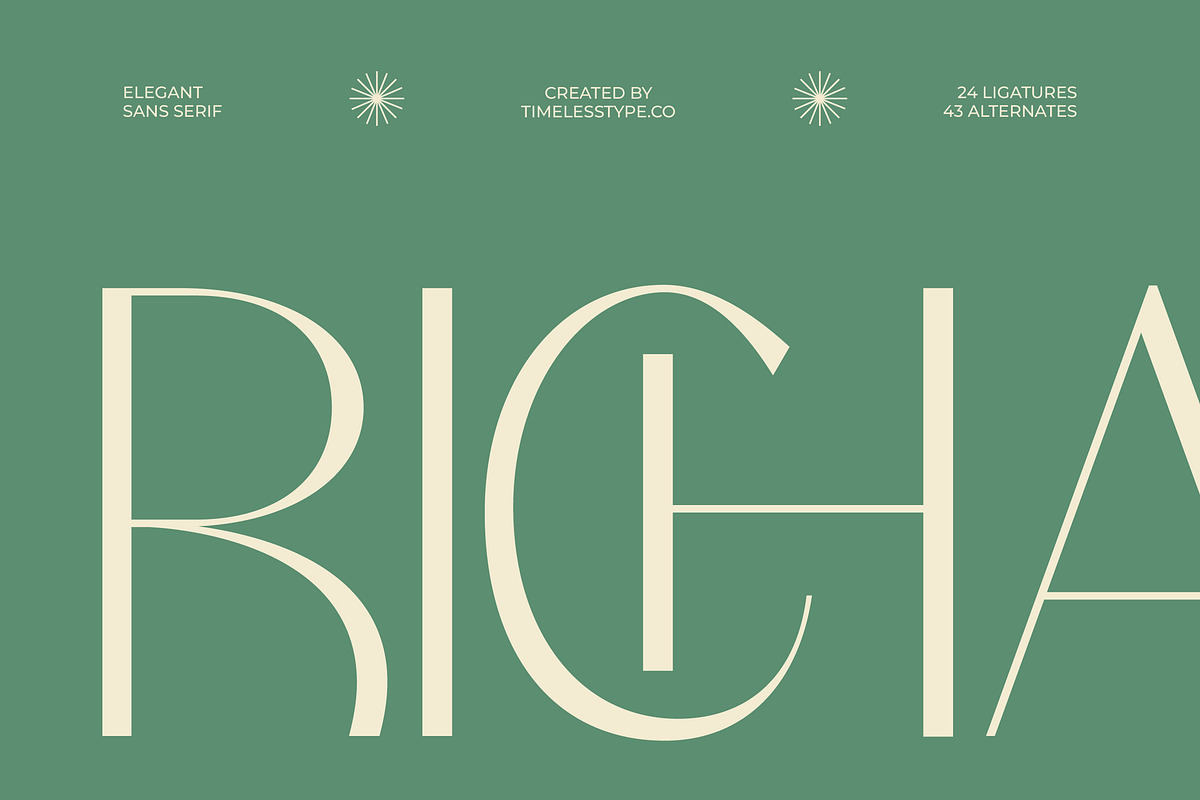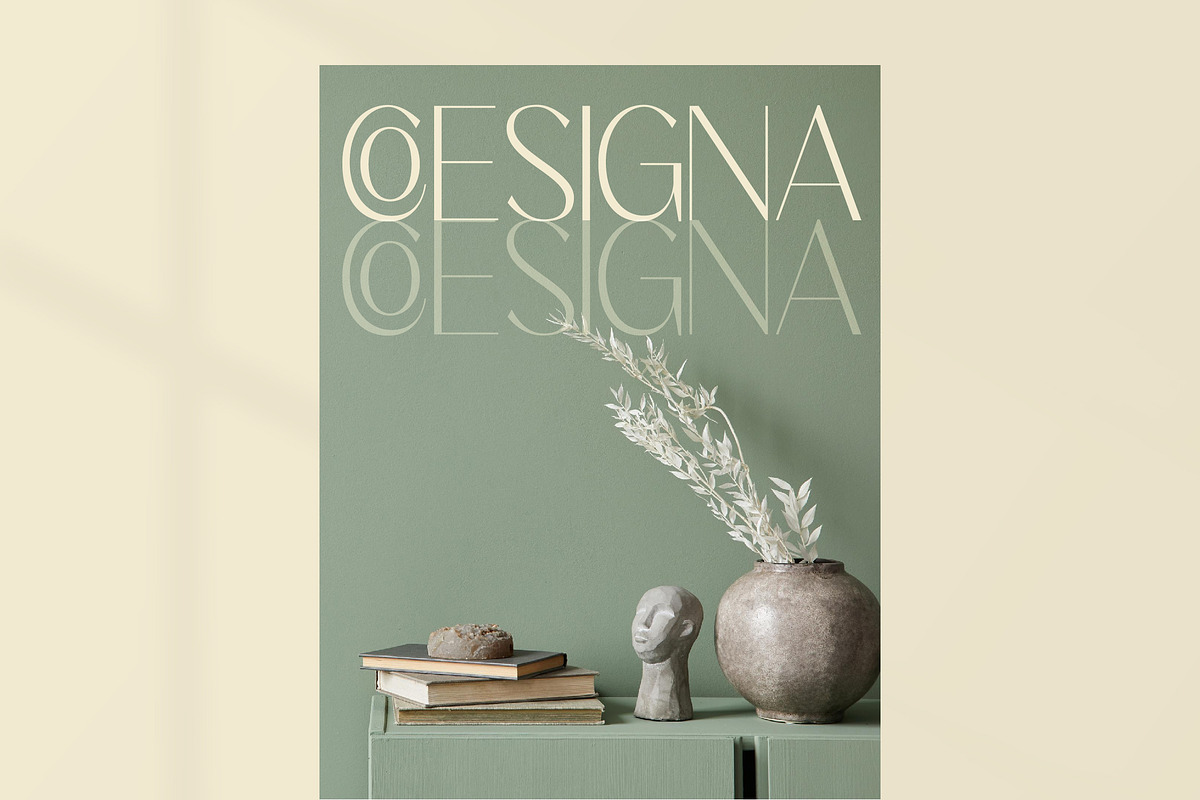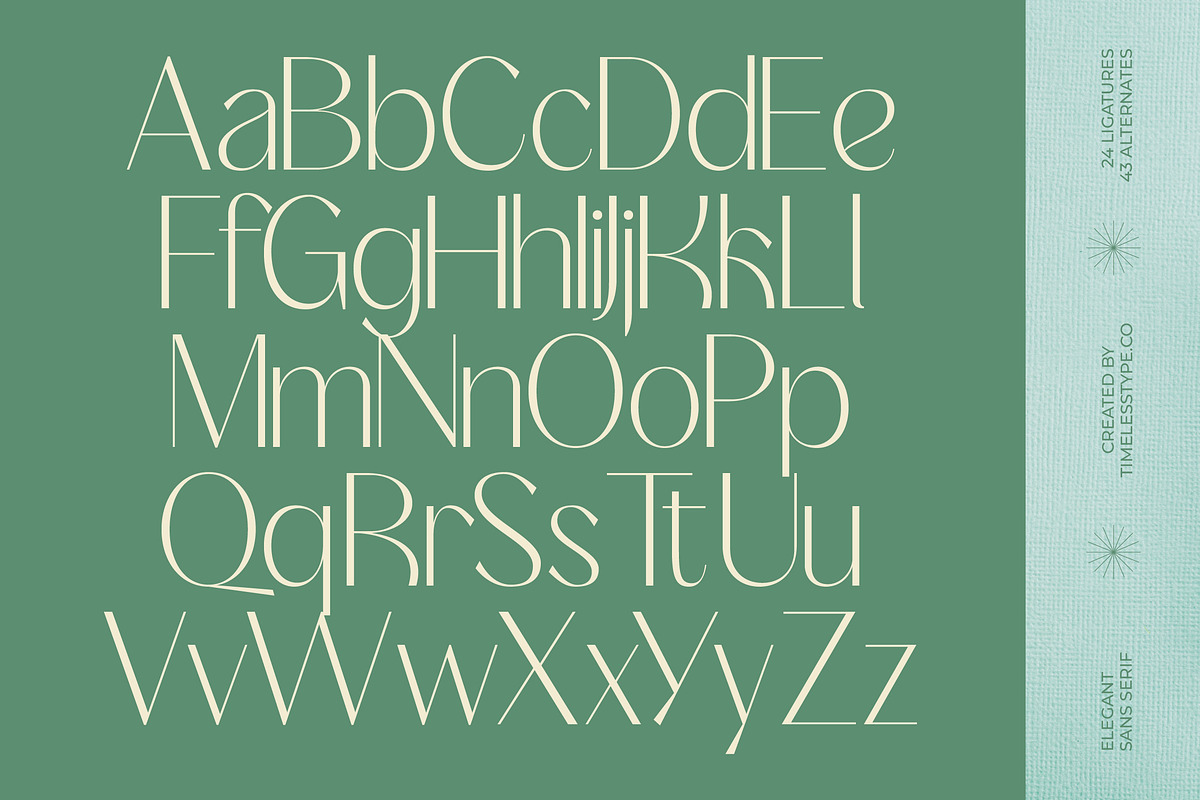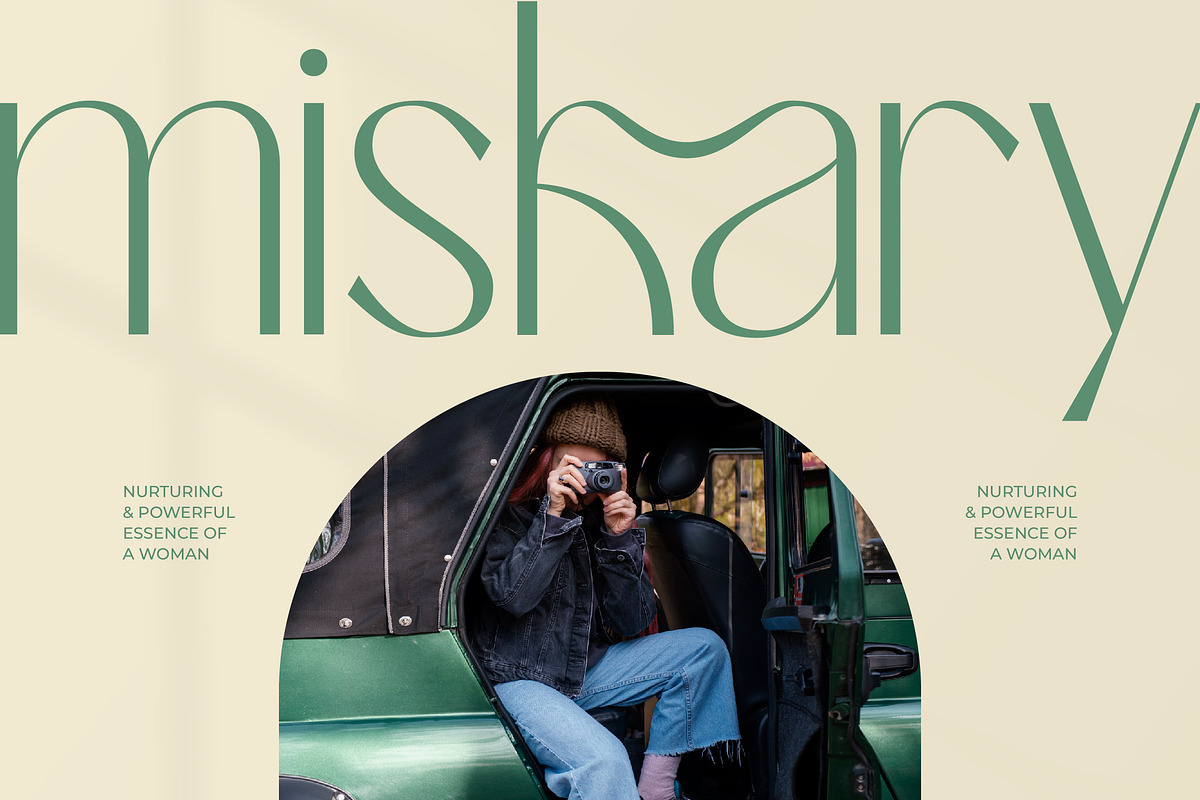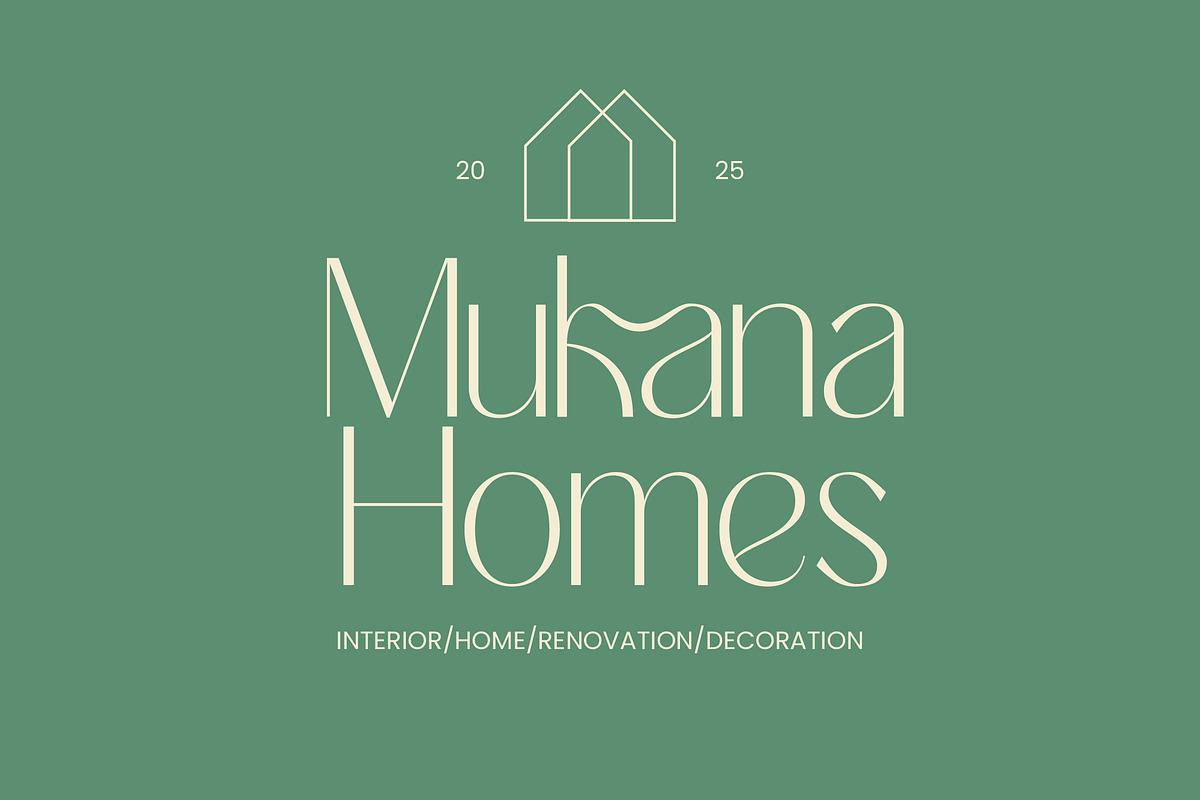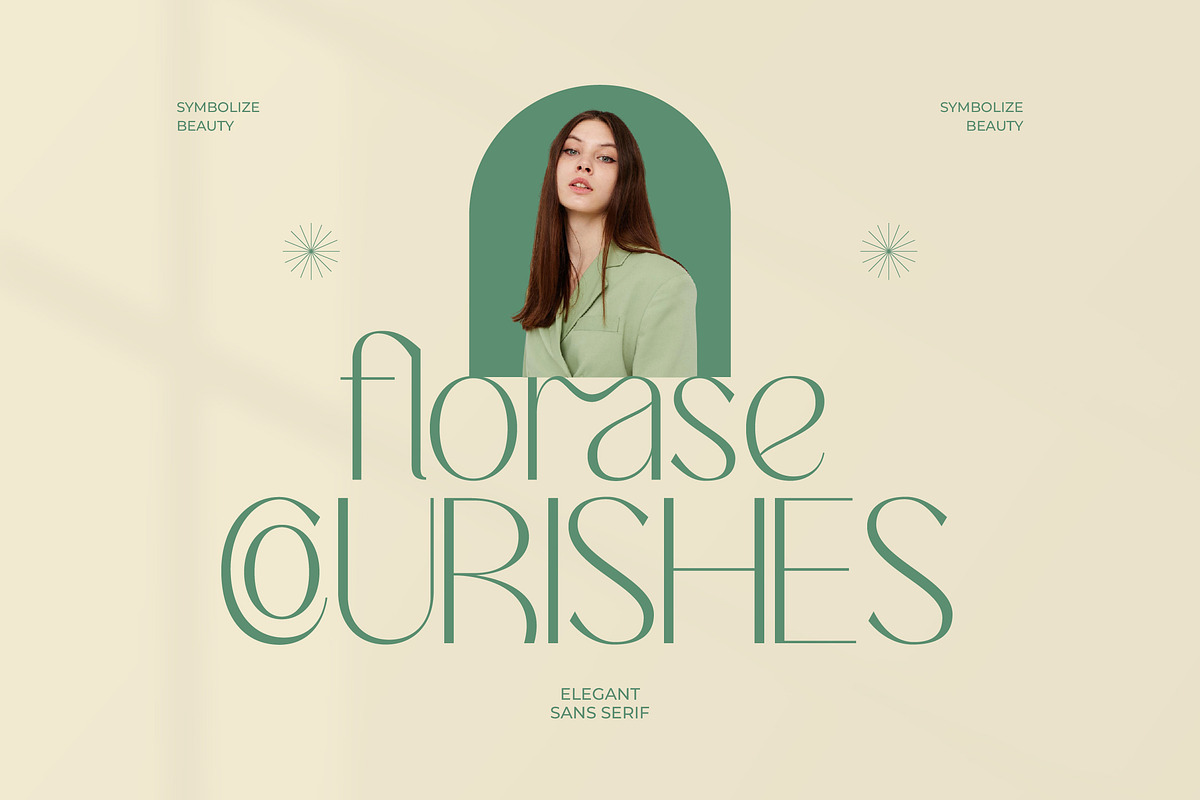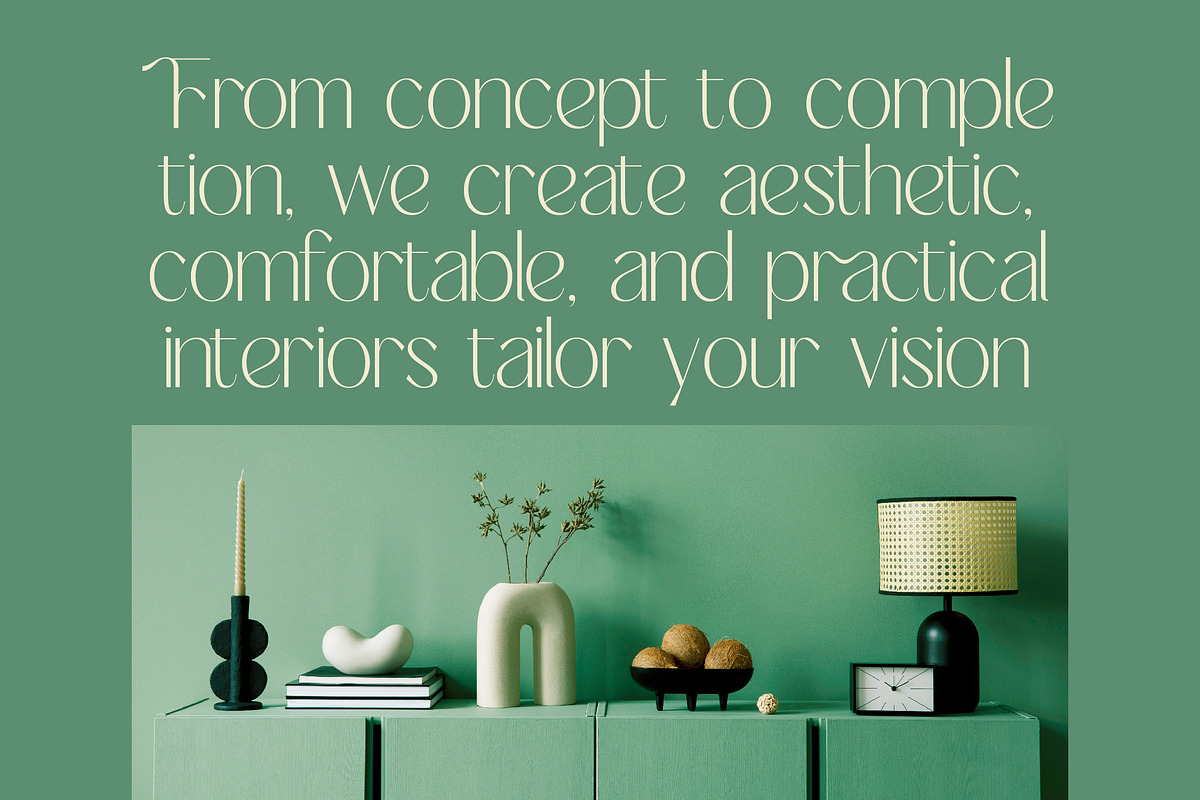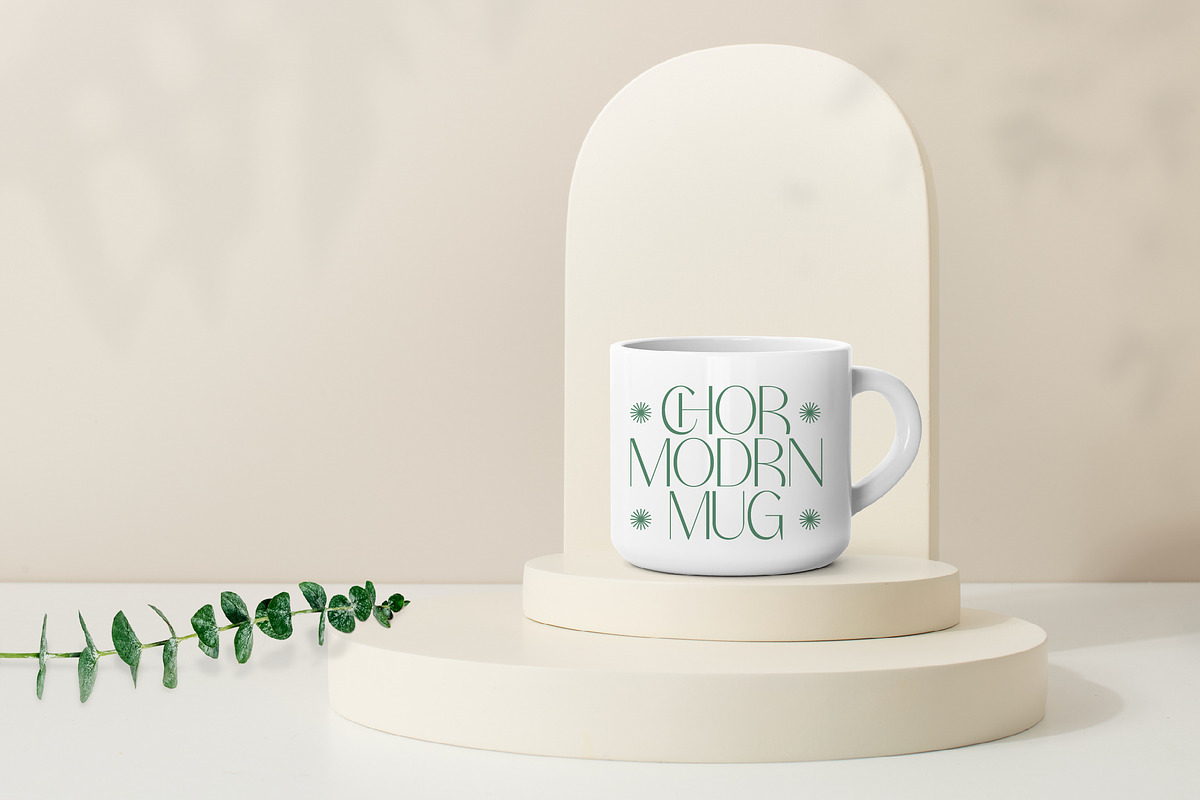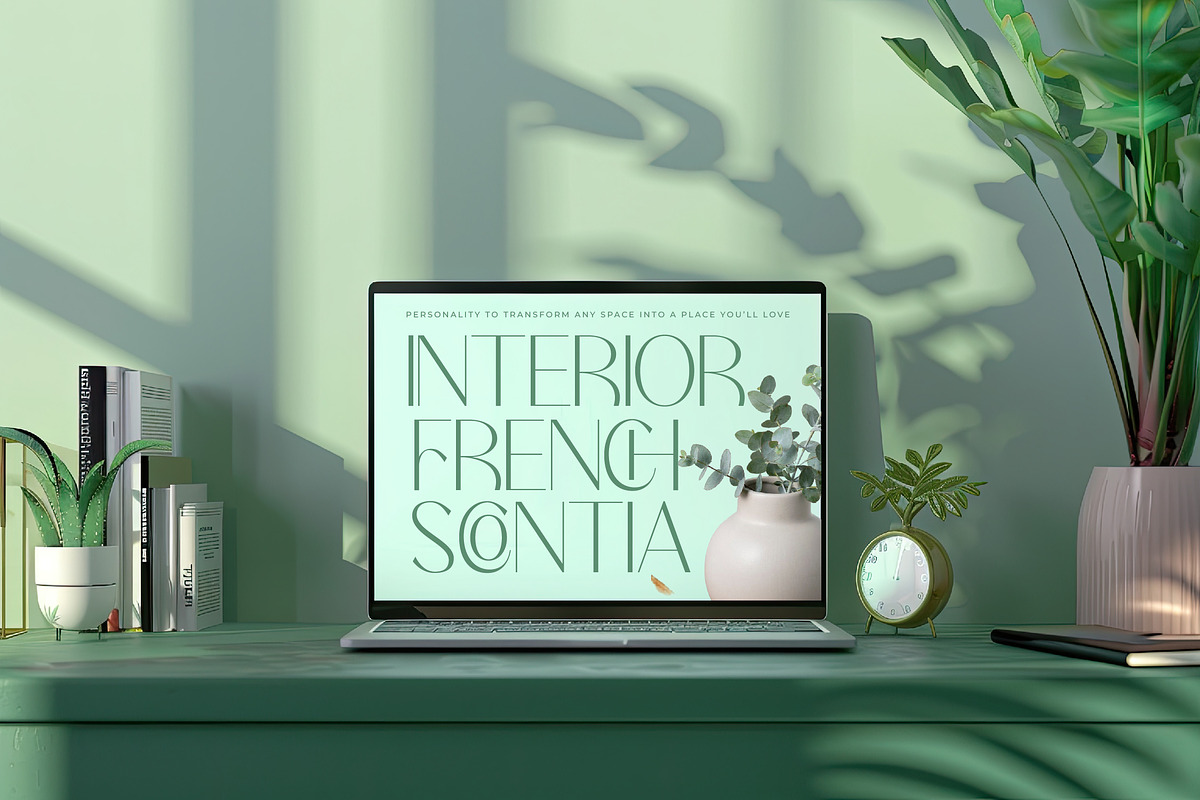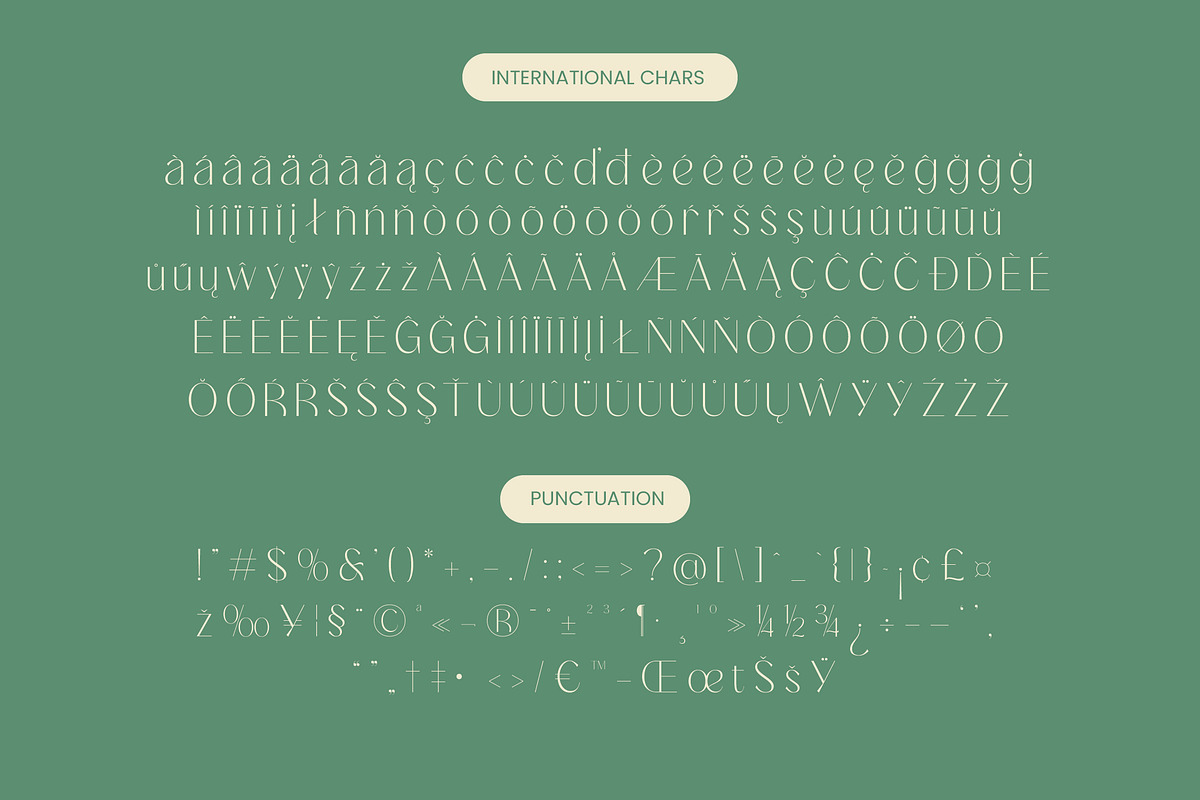
Adisan Richard Elegant Sans Serif
Experience the sublime fusion of heritage and modernity with Adisan Richard, a typeface designed to command attention with effortless grace. This masterfully crafted font elevates every word into a work of art, ensuring your designs resonate with a sense of timeless sophistication.
Inspired by the refined silhouettes of high-fashion editorial spreads and the minimalist beauty of contemporary art galleries, this typeface captures a unique architectural rhythm. The delicate balance between its sweeping curves and razor-sharp terminals evokes an atmosphere of exclusive luxury and avant-garde style.
As a modern serif display and high-contrast serif, it delivers a powerful branding impact while maintaining an air of understated elegance. This luxury typography is the quintessential editorial font for those who seek to bridge the gap between classic aesthetics and forward-thinking design.
Perfectly aligned with the current modern serif trend, this typeface stands at the forefront of editorial display fonts. Designers looking for character-driven typography will find its unique letterforms essential for creating visual identities that feel both current and enduring.
From high-end logo design and comprehensive branding systems to exquisite wedding invitations and fashion lookbooks, its versatility is unmatched. It excels in editorial layouts and luxury packaging where visual hierarchy and aesthetic distinction are paramount.
This professional toolkit includes a rich set of 24 ligatures and 43 alternates to provide endless creative possibilities for your layouts. Full multilingual support and international characters ensure global accessibility while various swashes allow for custom-tailored typographic expressions.
- Ligature 24 Alternate 43